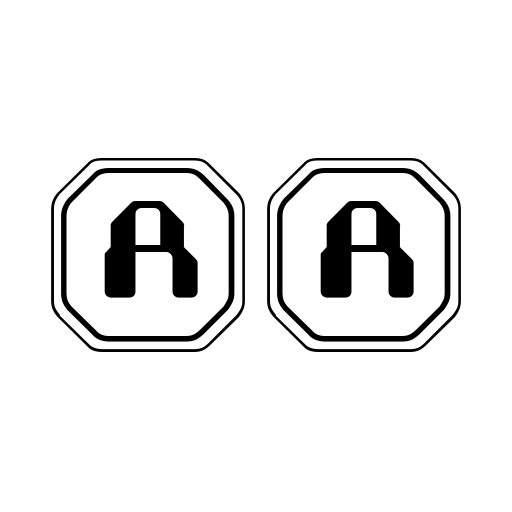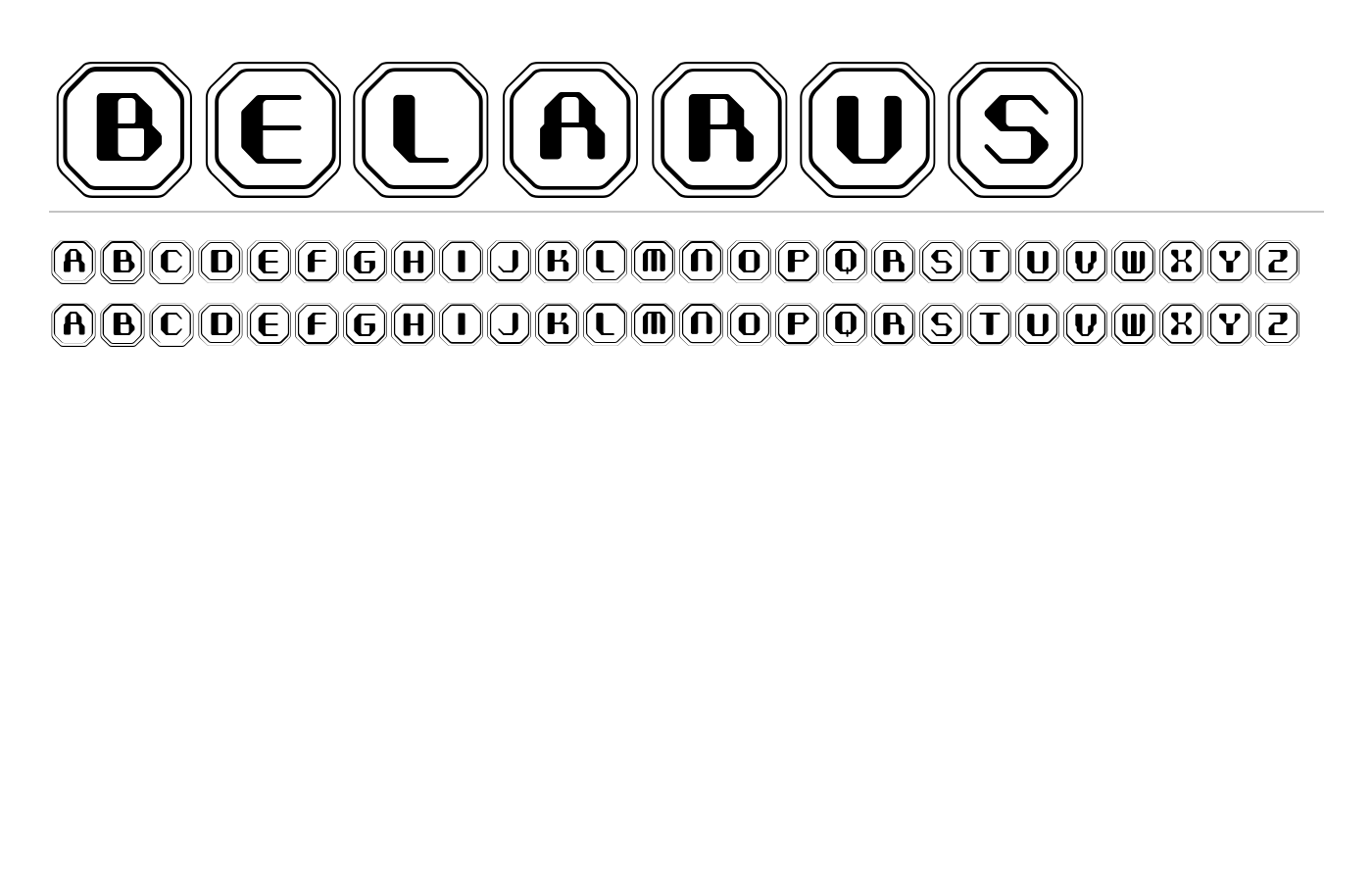
Belarus Font is a bold, geometric sans serif with a unique octagonal outline that gives it a striking, futuristic look. Its all-caps design and heavy weight make it perfect for eye-catching headlines, logos, and branding that want to convey modernity and strength. This font stands out in poster designs, tech themes, and packaging where a clean yet bold statement is needed.
Belarus Font
About Belarus Font
| Font family | Belarus Font |